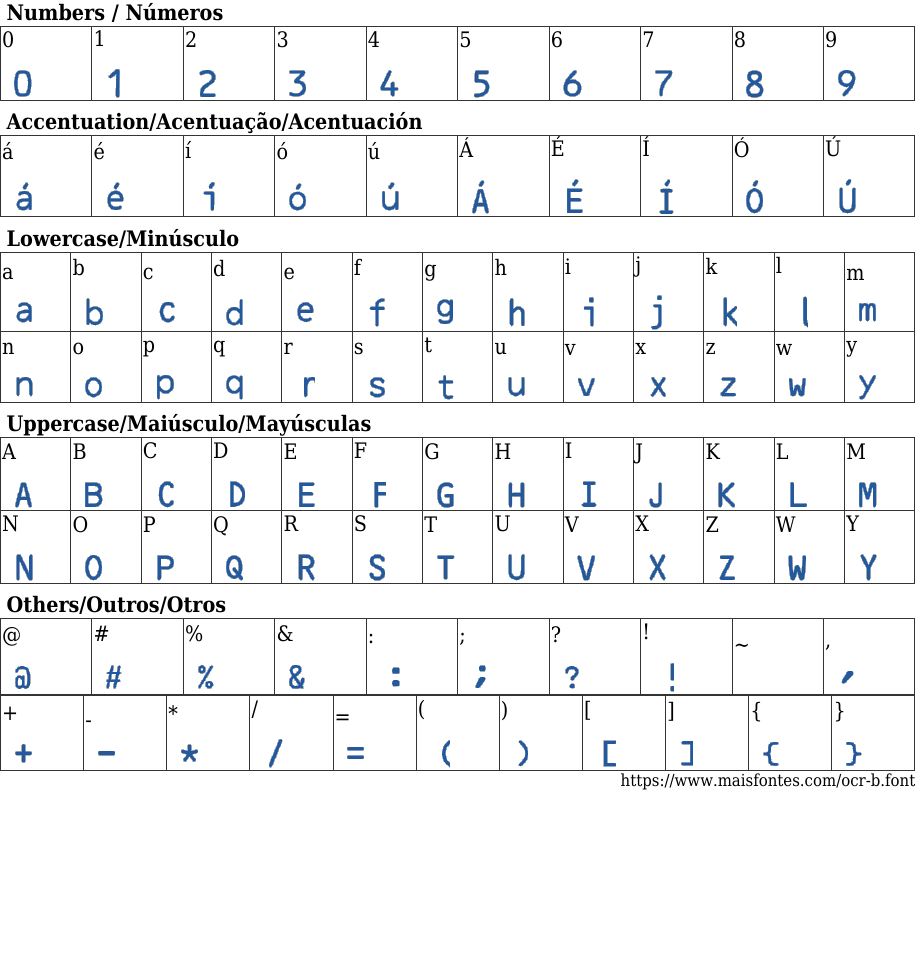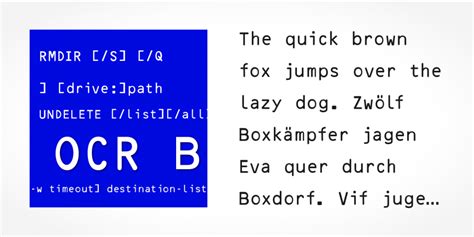
Ocr B Font
Ocr B Font - It falls under the regular. Ocr b regular is an excellent choice of font for your playful designs. This design pushes the limits of the.
It falls under the regular. Ocr b regular is an excellent choice of font for your playful designs. This design pushes the limits of the.
Ocr b regular is an excellent choice of font for your playful designs. This design pushes the limits of the. It falls under the regular.
It falls under the regular. Ocr b regular is an excellent choice of font for your playful designs. This design pushes the limits of the.
This design pushes the limits of the. It falls under the regular. Ocr b regular is an excellent choice of font for your playful designs.
This design pushes the limits of the. Ocr b regular is an excellent choice of font for your playful designs. It falls under the regular.
Ocr b regular is an excellent choice of font for your playful designs. It falls under the regular. This design pushes the limits of the.
This design pushes the limits of the. Ocr b regular is an excellent choice of font for your playful designs. It falls under the regular.
It falls under the regular. Ocr b regular is an excellent choice of font for your playful designs. This design pushes the limits of the.
OCR B Font
Ocr b regular is an excellent choice of font for your playful designs. It falls under the regular. This design pushes the limits of the.
It falls under the regular. Ocr b regular is an excellent choice of font for your playful designs. This design pushes the limits of the.
This design pushes the limits of the. Ocr b regular is an excellent choice of font for your playful designs. It falls under the regular.
It Falls Under The Regular.
This design pushes the limits of the. Ocr b regular is an excellent choice of font for your playful designs.